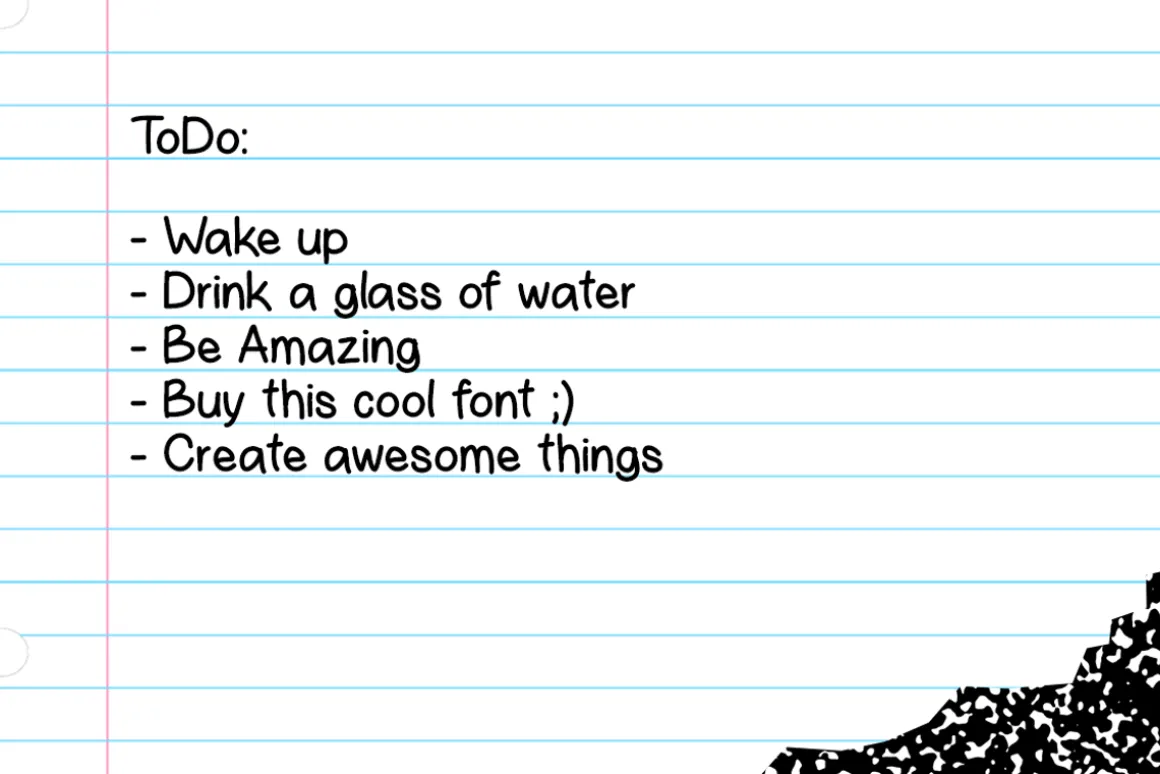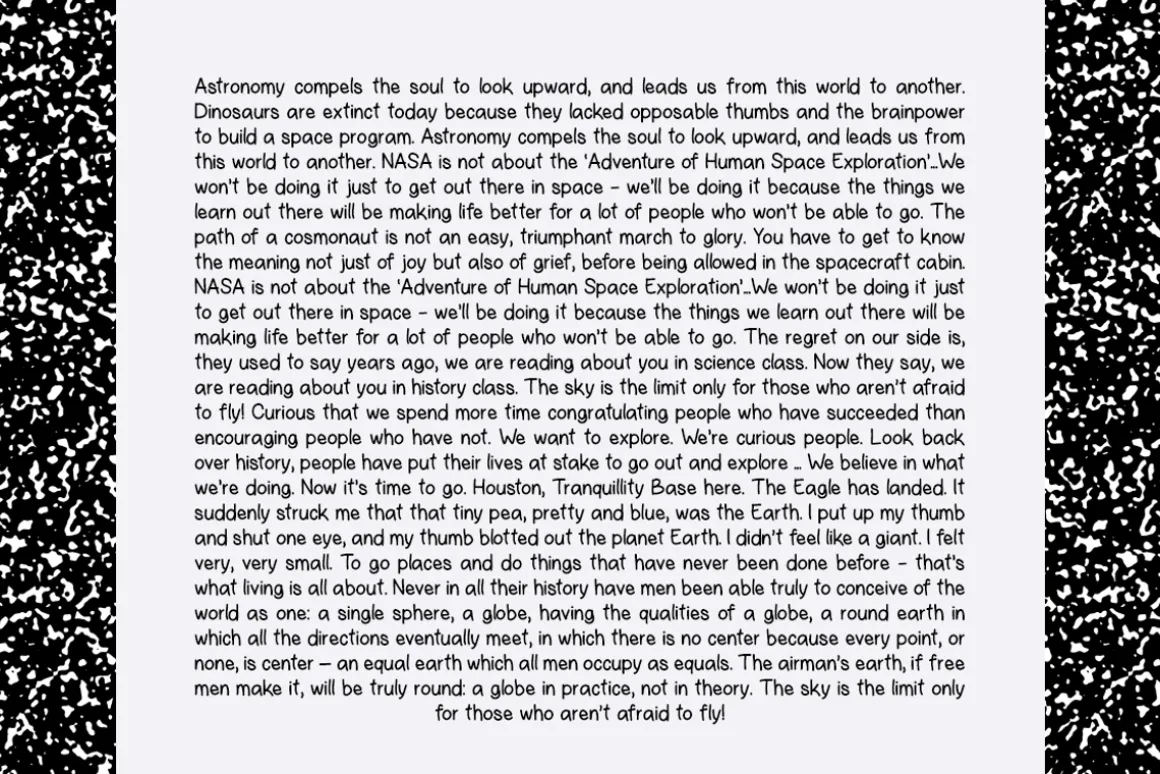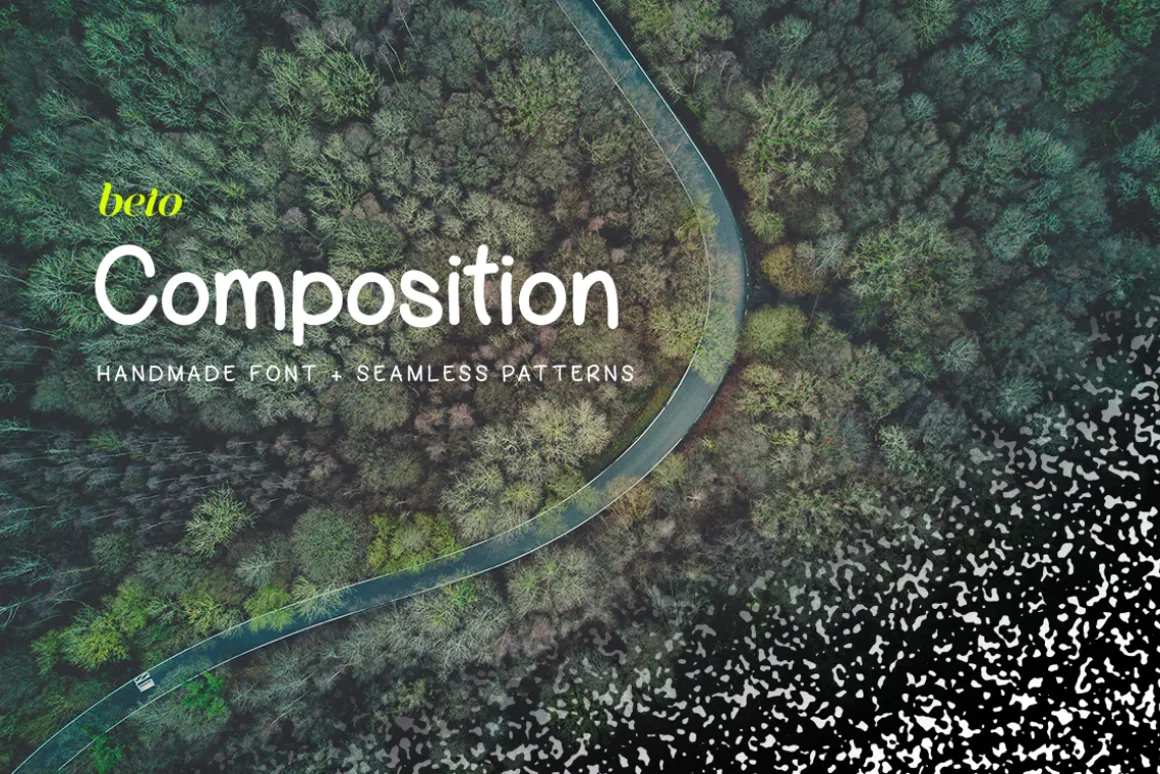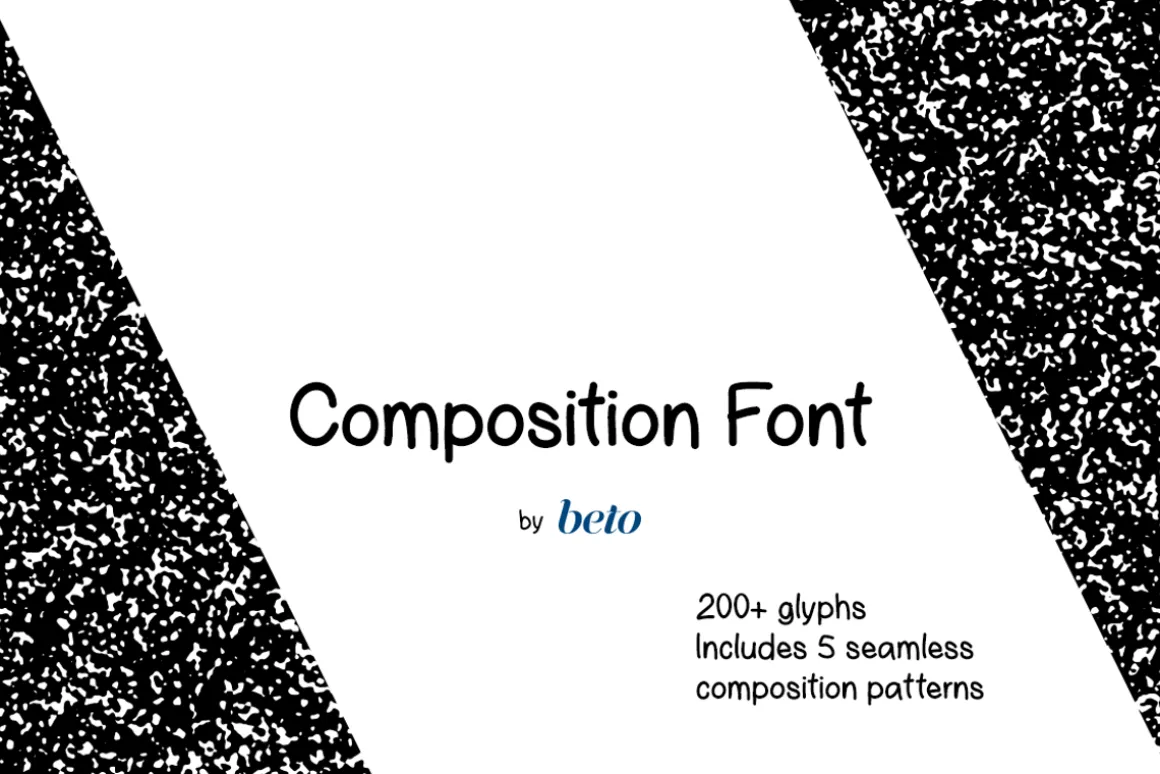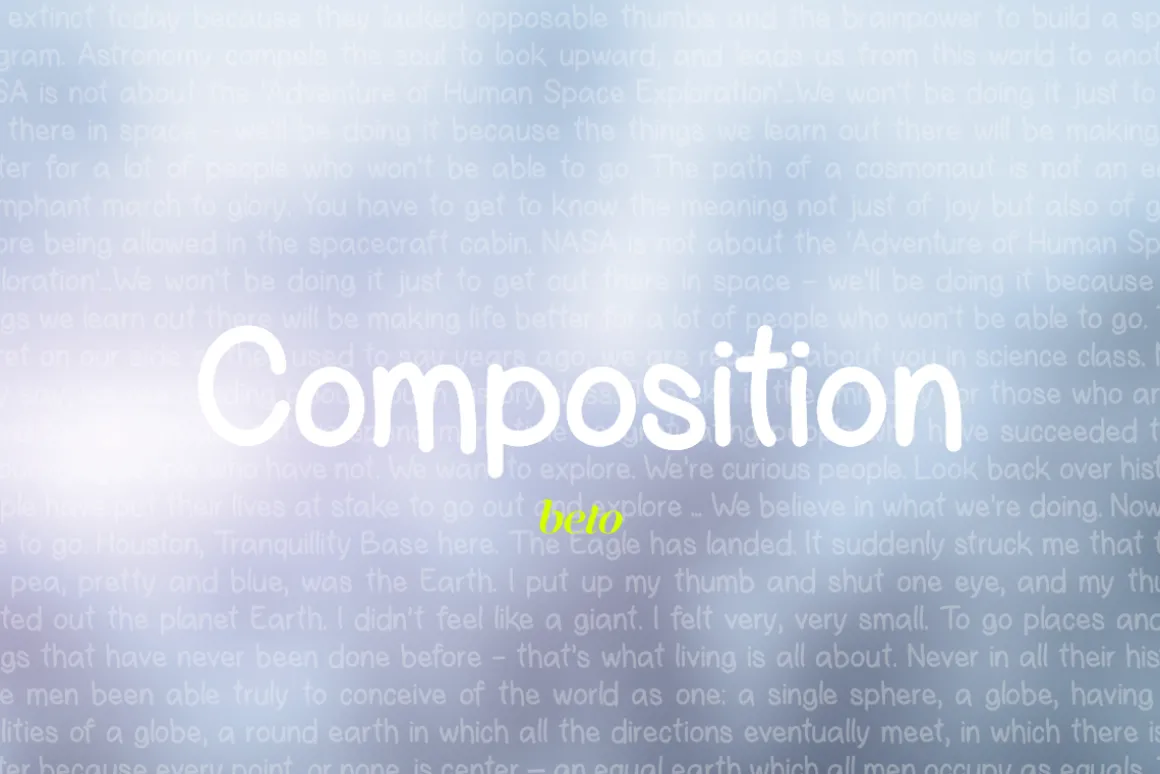
Composition is a handmade font that resembles the writing of a young student. It includes 5 seamless Composition Notebook patterns to add to the relaxed college style.
- More than 200 Glyphs
- Modern relaxed college note style handwritten sans serif